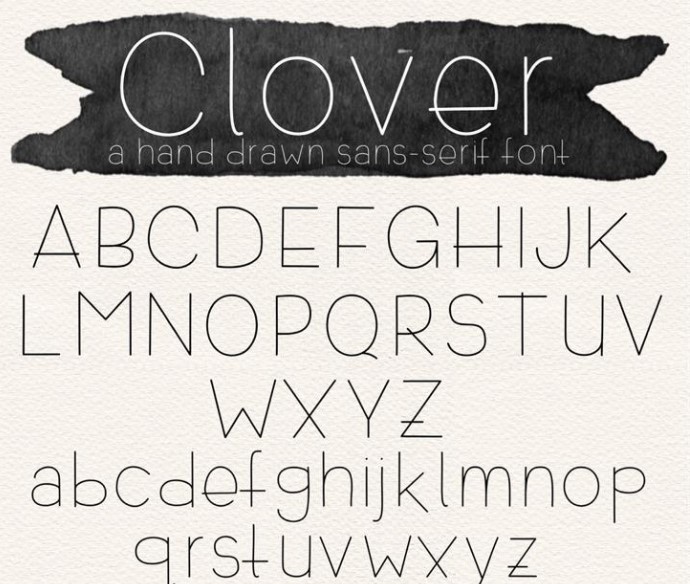
Here is the Clover Font, a hand-drawn sans-serif typeface with a beautiful texture. This font was released in 2018 under the supervision of Sarah Taylor.
This is a decent typeface that contains two different kinds of strokes including thin and medium and these both work well with Patagonia font there are also extra swashes inside this typeface.
If you look closely at the texture of this typeface you will feel the natural hand-drawn flow this seen because all the texture of this typeface is handmade. In every letter, extra strokes have been added.
In this typeface, there is only a single weight available that possesses Opentype features. In this style, there are 144 characters and these work well with Orkney font for all the small and medium designs.